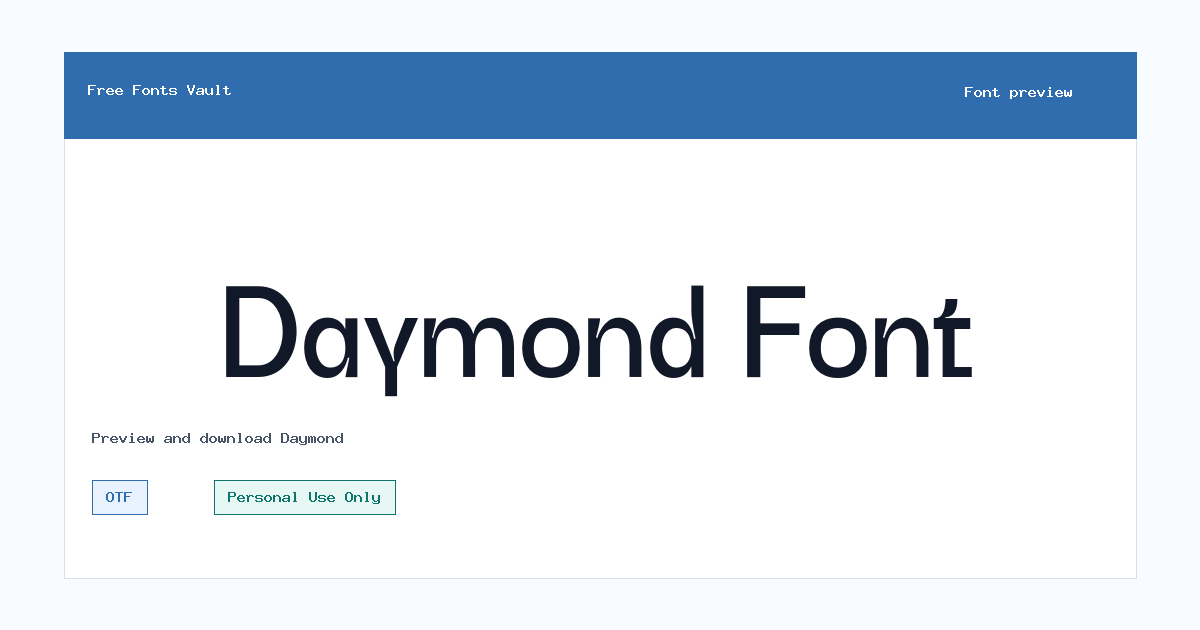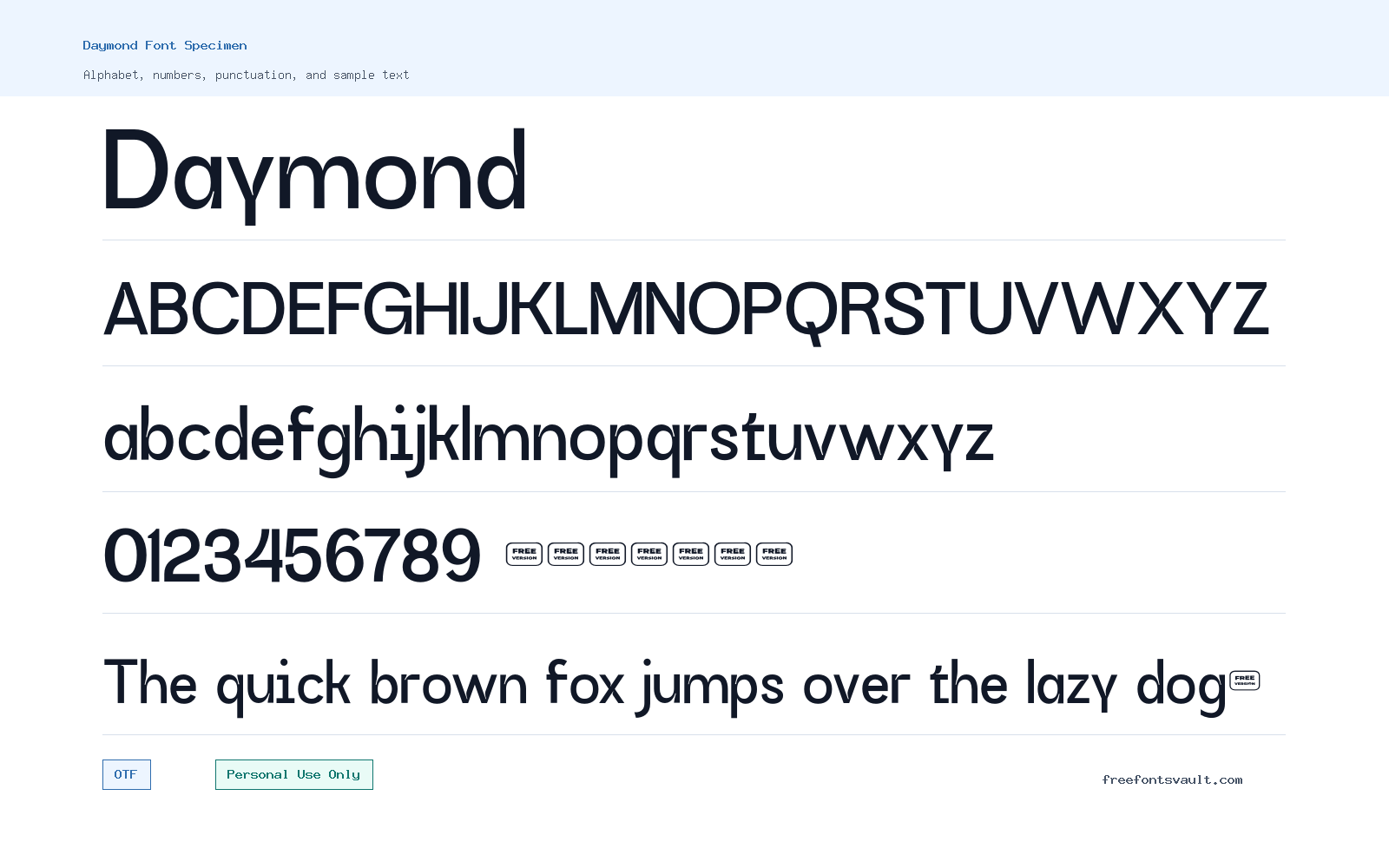
Daymond
- Designer typefactory
- Foundry typefactory
Daymond font.
Daymond is a sans serif font from Typefactory, offered here as an OTF font file for personal-use projects. It is a good font to test when you need clean short text for display layouts, headings, social graphics, or personal design drafts.
About Daymond Font
Daymond is listed as a sans serif font, which makes it a practical choice for visitors looking for a straightforward, modern-looking type style rather than a decorative script or serif face. Because the download includes a regular-style OTF file, it is best to preview it in the exact words you plan to use before deciding whether it fits your project. Try your brand name, event title, poster headline, or a few short phrases in the preview box to see how the spacing, letter shapes, and overall tone work together.
For best results, use Daymond where the text can stay fairly short. Sans serif fonts often work well in titles, simple logos for personal mockups, quote cards, thumbnails, labels, and clean layout experiments, but every font handles small sizes differently. Check it at both large and smaller preview sizes before using it in body text. If the design feels too tight or too plain in a longer paragraph, pair it with a calm text font and keep Daymond for headings or emphasis.
- Suitable for previewing short display text, headings, and personal design drafts
- Personal posters, social media graphics, quote cards, and title designs
- Logo mockups, branding experiments, labels, thumbnails, and clean heading layouts
Daymond is credited to Typefactory, with Typefactory also listed as the foundry.
What kind of font is Daymond?
Daymond is listed as a sans serif font. It is best tested for clean headings, short display text, and personal layout experiments.
Who designed Daymond?
The designer and foundry are listed as Typefactory.
Can I use Daymond for body text?
You can test it, but it is better to check readability first. Start with headings and short phrases, then preview a paragraph at the size you plan to use.